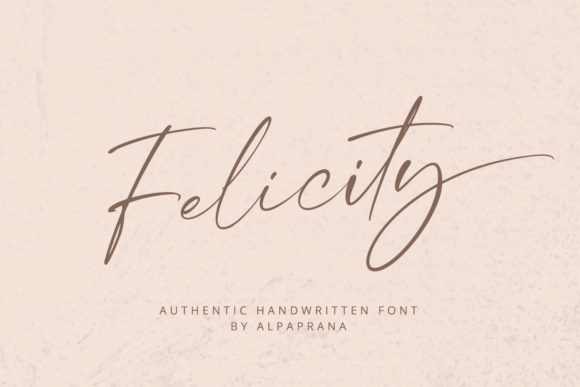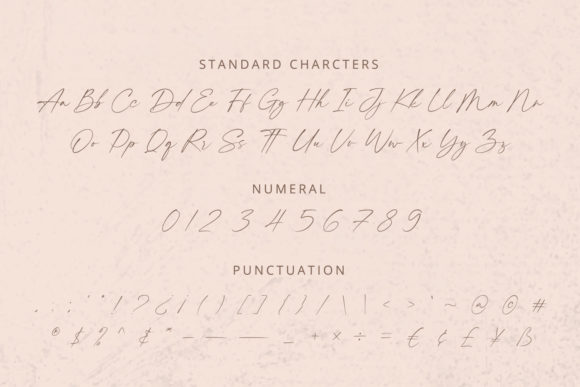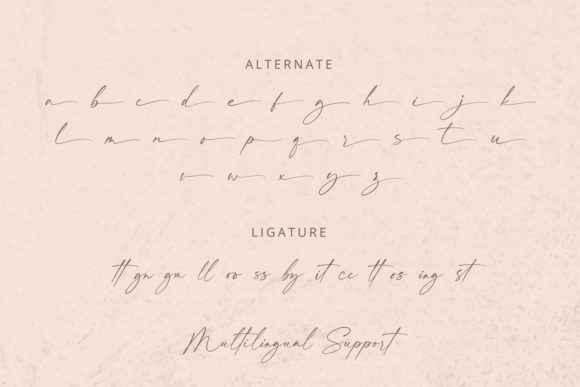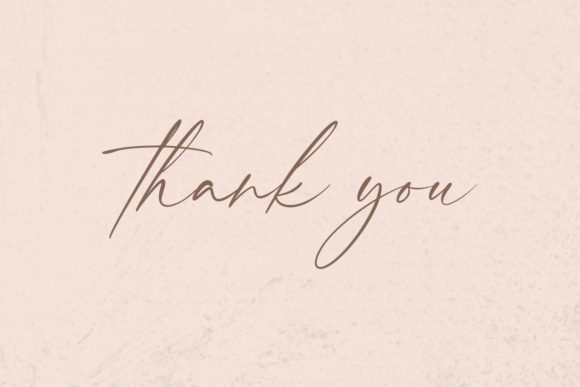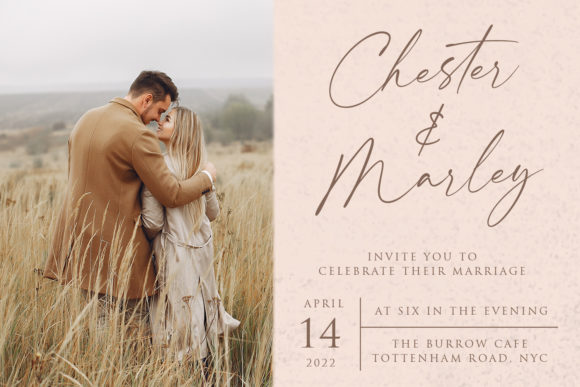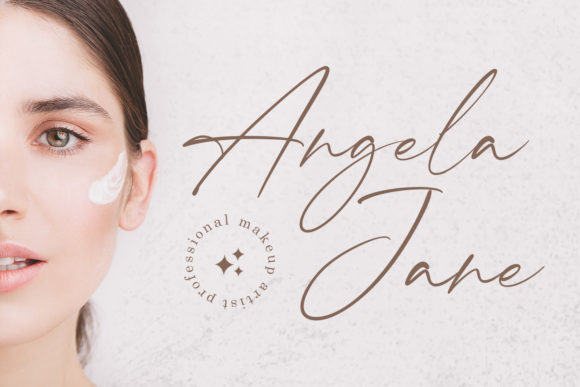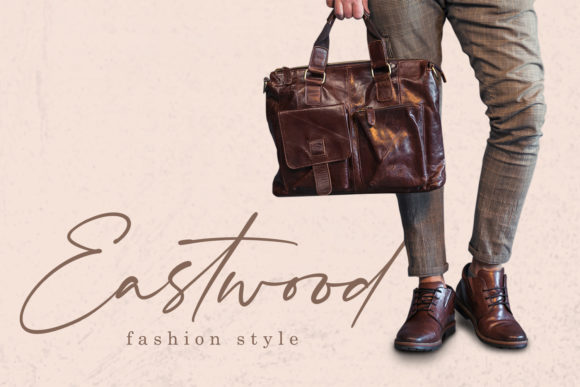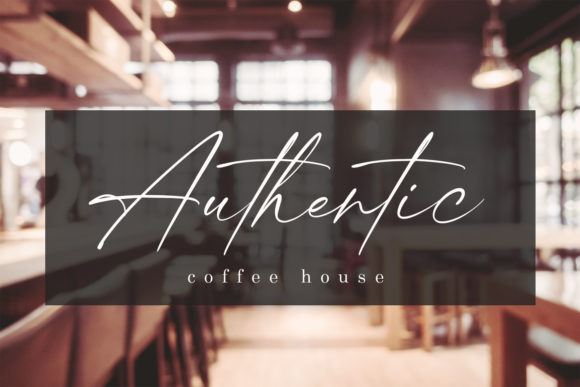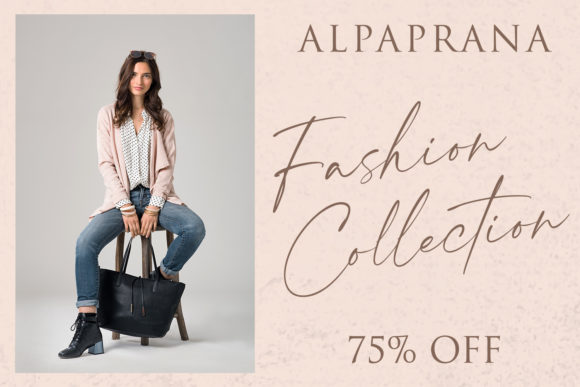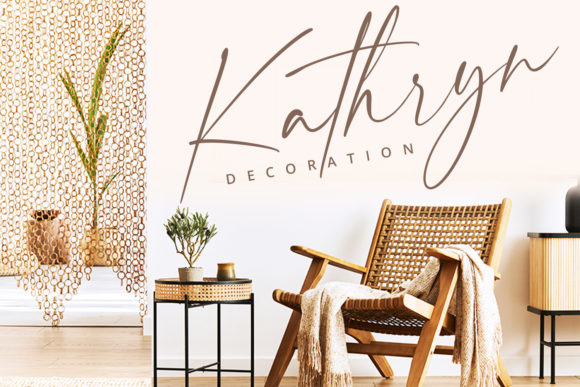
Felicity Font
About Felicity Font
Felicity is a thin lettered and graceful script font. Fall for its ravishing style and use it to create outstanding designs. This font is PUA encoded which means you can access all glyphs and swashes with ease!